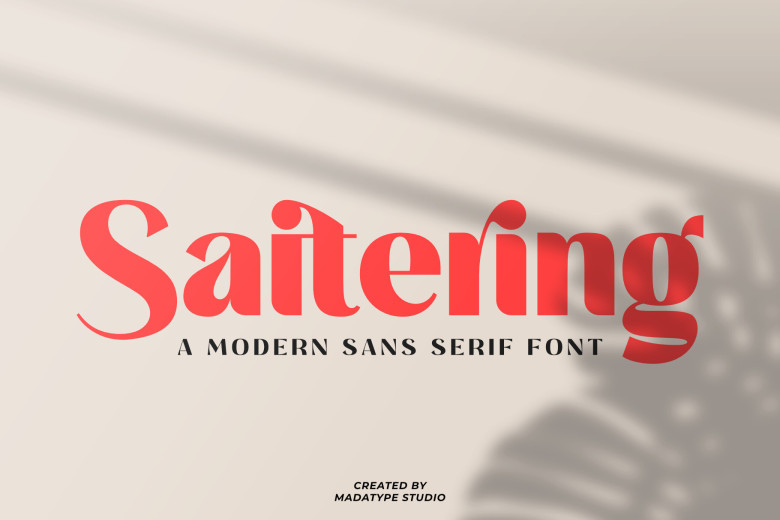
Saitering Font
Saitering is a typeface that has been developed for today’s computer environment and is both graceful and Robust. Unlike Massaud’s sofa, it is both daring and thick in its design and at the same time elegant and sleek. Thus, regardless of the objective, such as developing a business image from scratch, designing a logotype, or being involved in multiple projects, Saitering provides opportunities for creative specifications and high-impact effects.
Saitering is not an ordinary business and does not engage in ordinary practices too. This allows designers to be able to use different styles of alternates and ligatures in the typeface and be able to come up with different compositions. In any case, Saitering comes through; needed is a simple modification or a striking accent.
Saitering Sans Serif Font